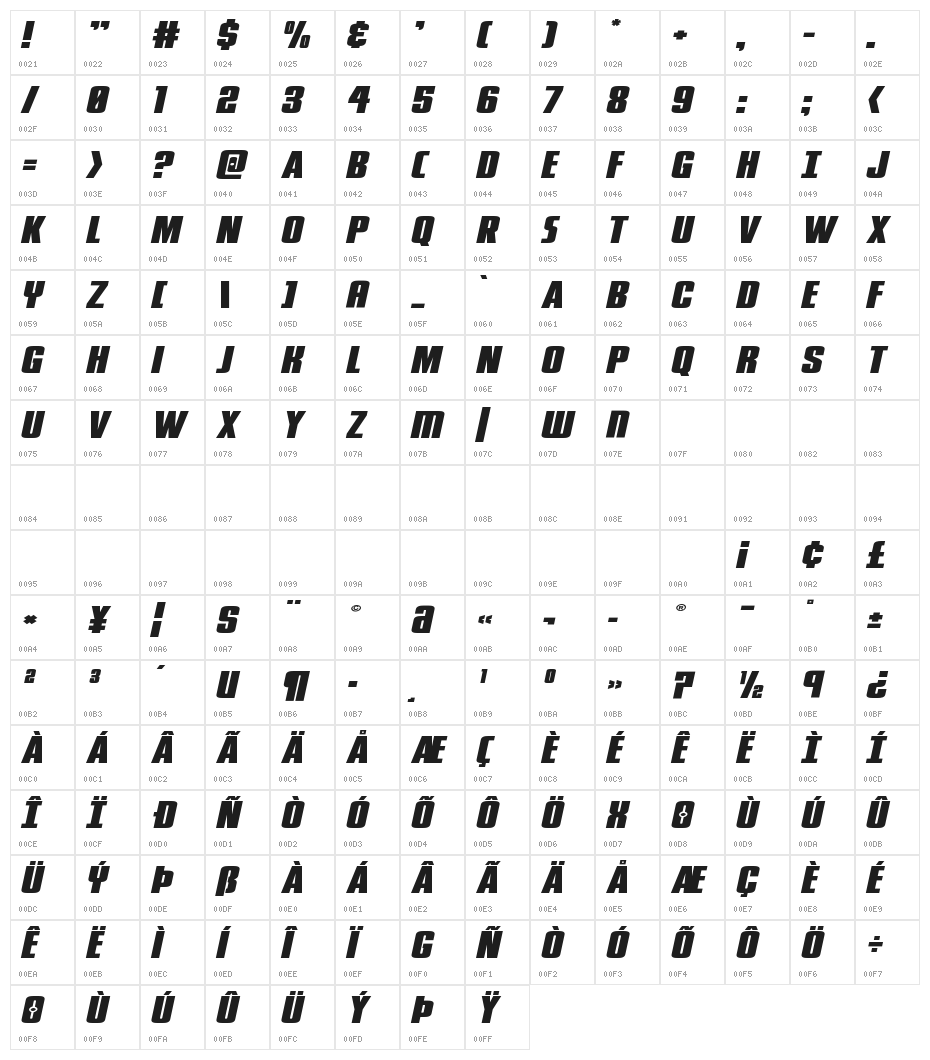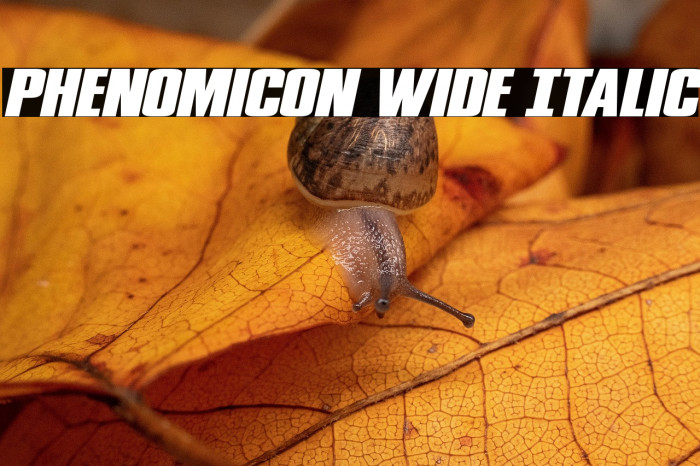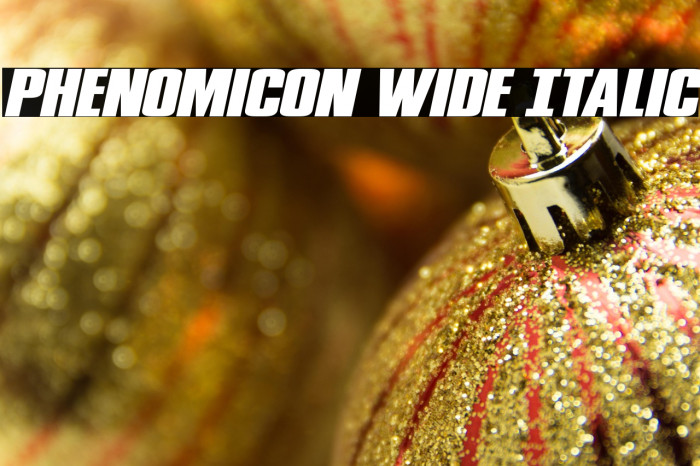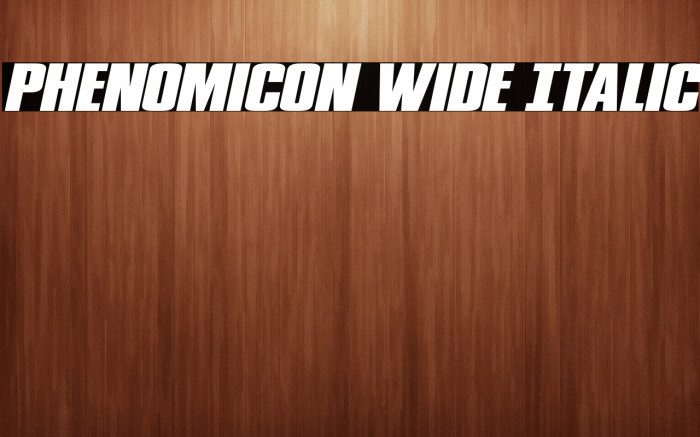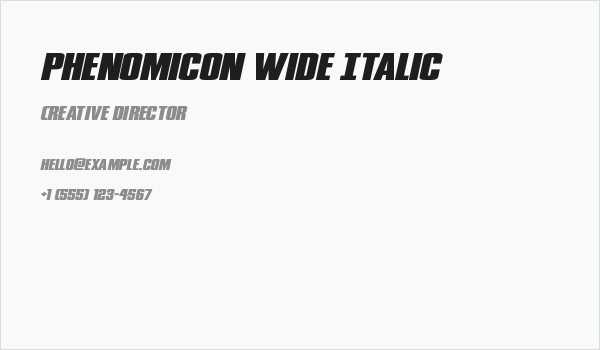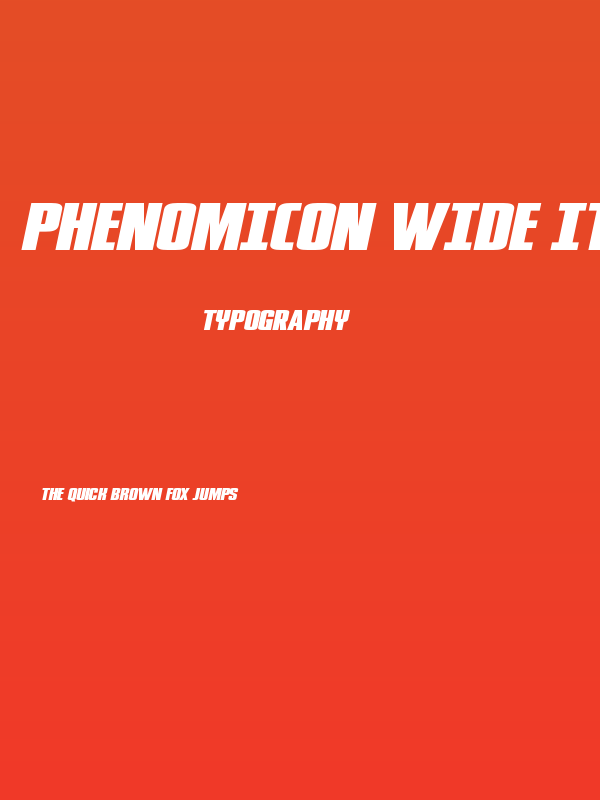
Phenomicon Wide Italic Font
Phenomicon Wide Italic Description
This font features a bold and dynamic style with a wide and italicized form, giving it a strong and impactful presence. The characters are designed with sharp angles and a slightly condensed appearance, enhancing its modern and assertive look. The uppercase letters are particularly striking, with a consistent slant that adds a sense of motion and energy. The numerals and special characters maintain the same boldness and slant, ensuring uniformity across all glyphs. This font is ideal for projects that require a bold statement and a contemporary feel.
| Proposed Projects | Ideal for sports branding, dynamic posters, impactful headlines, and modern advertising campaigns. |